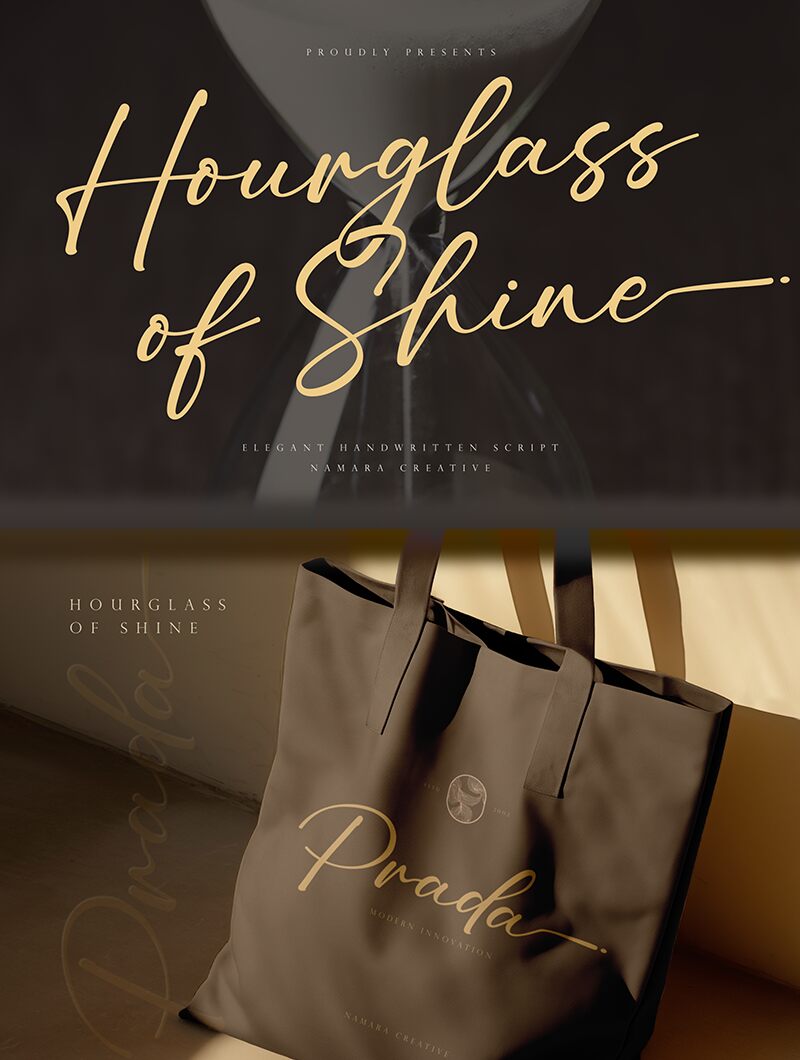
Hourglass Of Shine font
Discover an elegant handwritten script font that embodies a natural touch and stunning style. Elevate your designs and captivate your audience with the timeless beauty of this font. Download this free font now to take your creative projects to the next level!